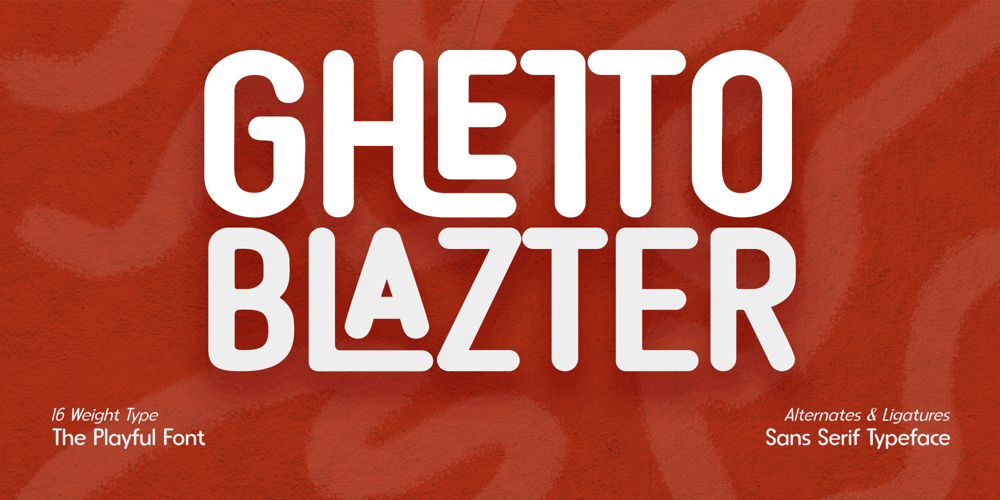
Ghetto Blazter
Ghetto Blazter font
Ghetto Blazter Font Family was designed by Frederik Aristaputra and published by Creatifont Studio. Ghetto Blazter contains 16 styles and family package options. Ghetto Blazter is a versatile sans-serif font that blends modern aesthetics with a touch of urban flair. Its rounded corners and dynamic letterforms create a friendly and approachable atmosphere, perfect for a variety of design projects.Ghetto Blazter’s unique feature lies in its ability to interlock words, creating visually interesting and dynamic compositions. With a vast array of alternates and ligatures, the possibilities for customization are endless. The font’s rounded corners soften its appearance, making it more approachable and inviting. This, combined with its clean lines and contemporary design, ensures that Ghetto Blazter remains relevant in modern design trends.A SUMMARY OF WHAT’S INCLUDED:Standard Character A-Z, a-z, 0-9, Punctuation & symbols16 Styles Font Various Alternates and Ligatures Multilingual Support Accent and Diacritics Works on PC & Mac Simple installation Accessible in Adobe Creative Suite (Ai, Ps, Id, etc.) even work on Microsoft Word. PUA Encoded Characters – Fully accessible without additional design software. ————————————————-🌟If you come across any issues or notice anything we might have overlooked while using this product, please feel free to reach out to us. We greatly value your feedback as it helps us enhance and refine our products. Thank you!